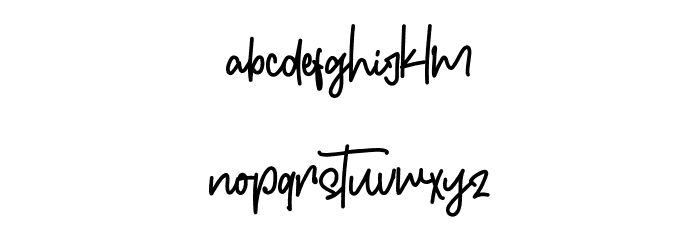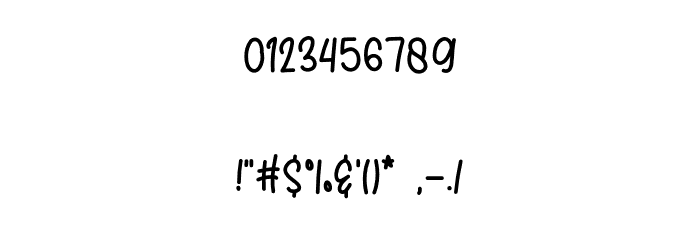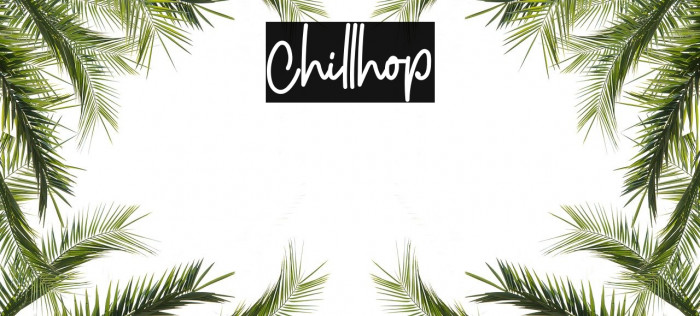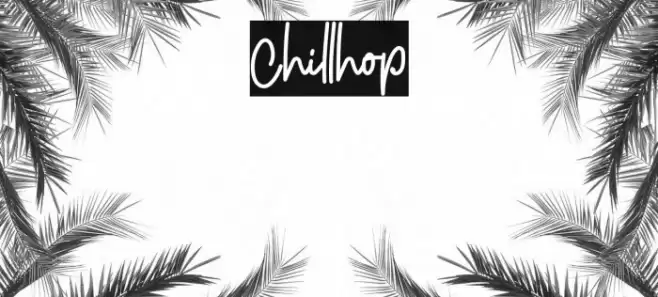
Chillhop Font
This font features a playful and casual handwritten style, characterized by its fluid and slightly irregular strokes that mimic natural handwriting. The uppercase letters are bold and slightly elongated, giving a sense of movement and energy. The lowercase letters maintain a consistent flow, with some characters having unique loops and curves that add personality. The numerals are clear and legible, matching the overall style of the alphabet. Special characters are well-integrated, maintaining the font's cohesive look. This font is ideal for projects that require a personal touch or a relaxed, informal vibe.
A playful handwritten font with fluid, energetic strokes.
- Proposed Projects: Ideal for greeting cards, invitations, personal branding, and social media graphics.
- Overall Style: Casual
- Use Case: Logos, Headlines, Social media posts